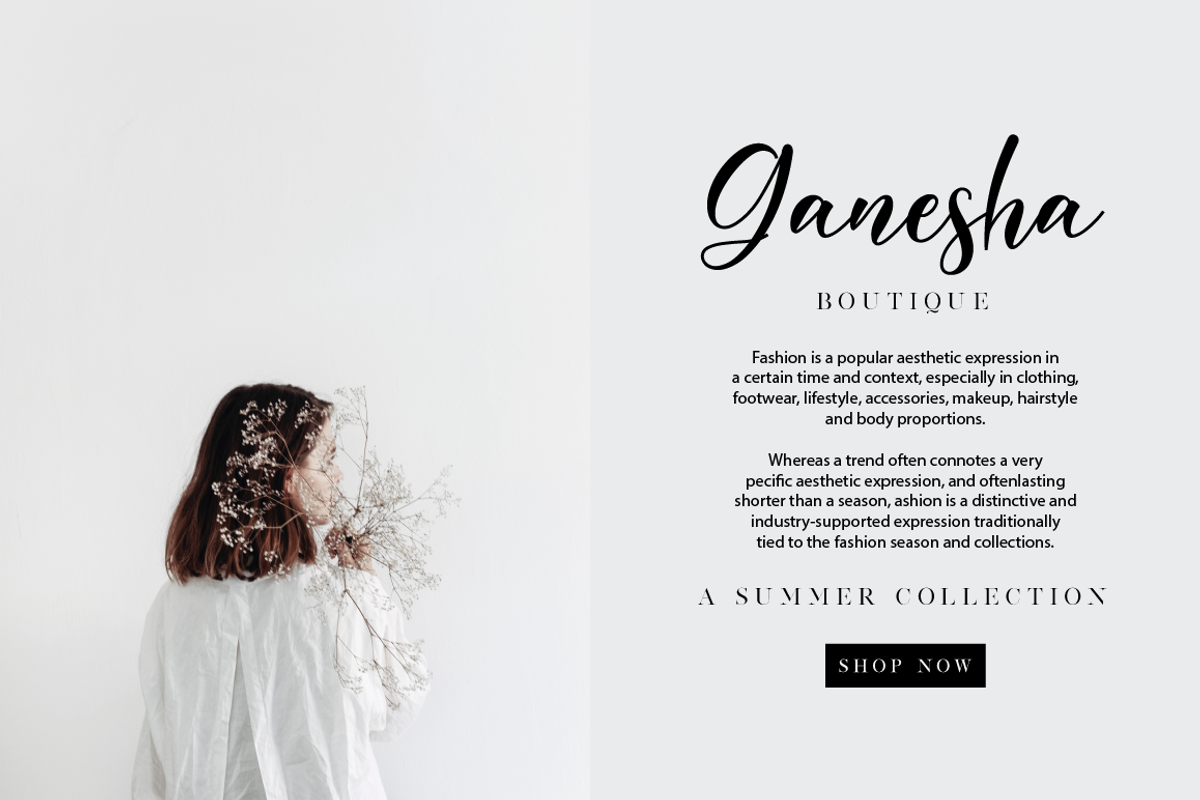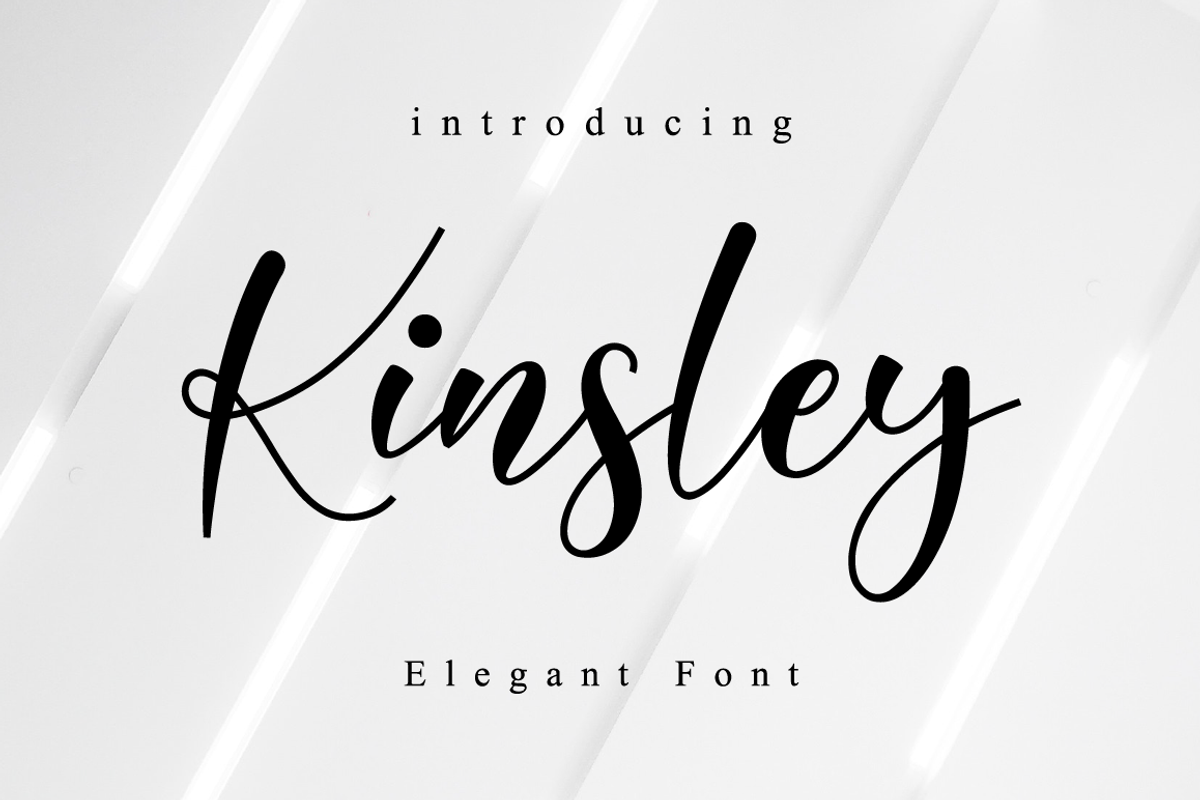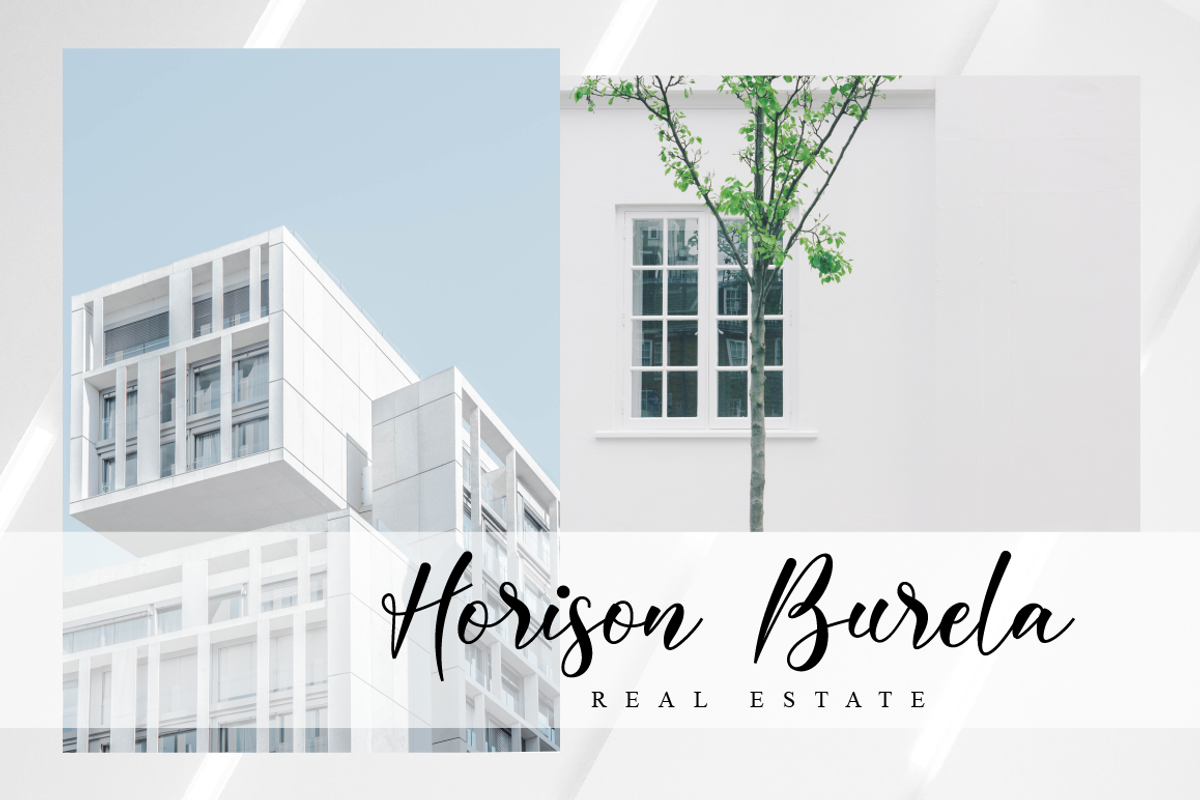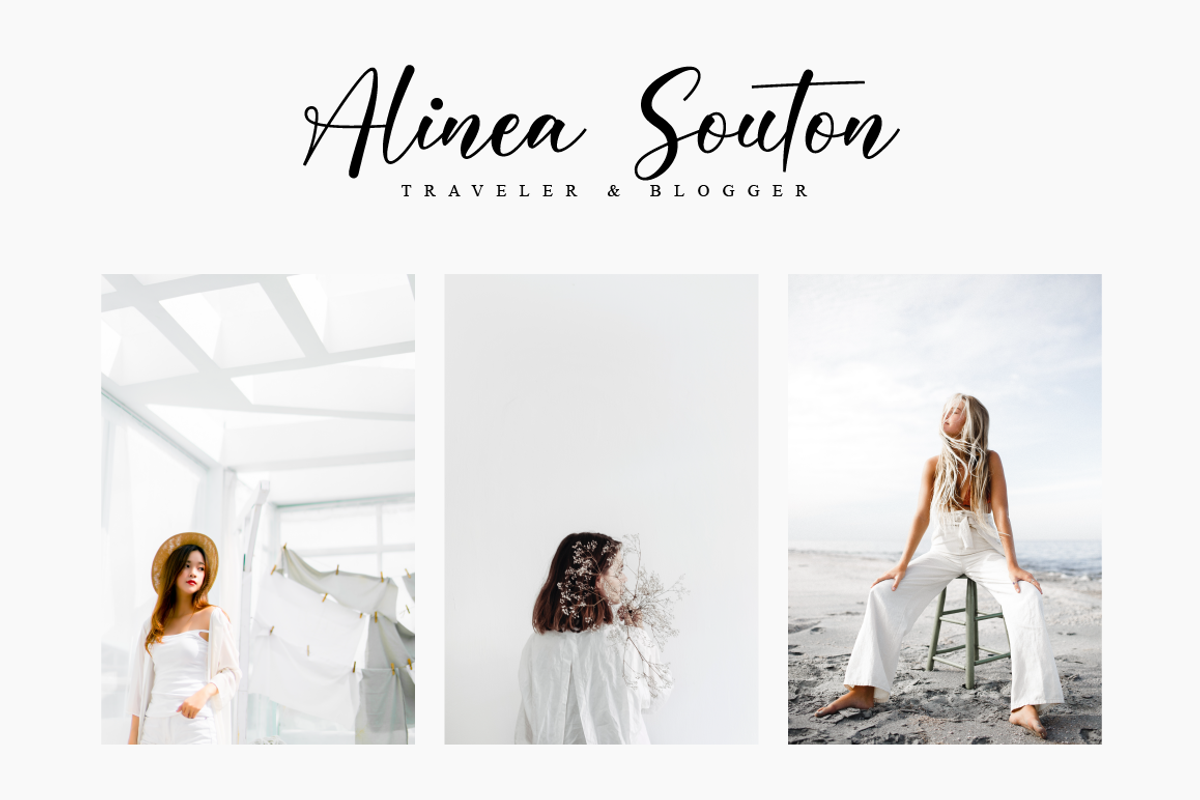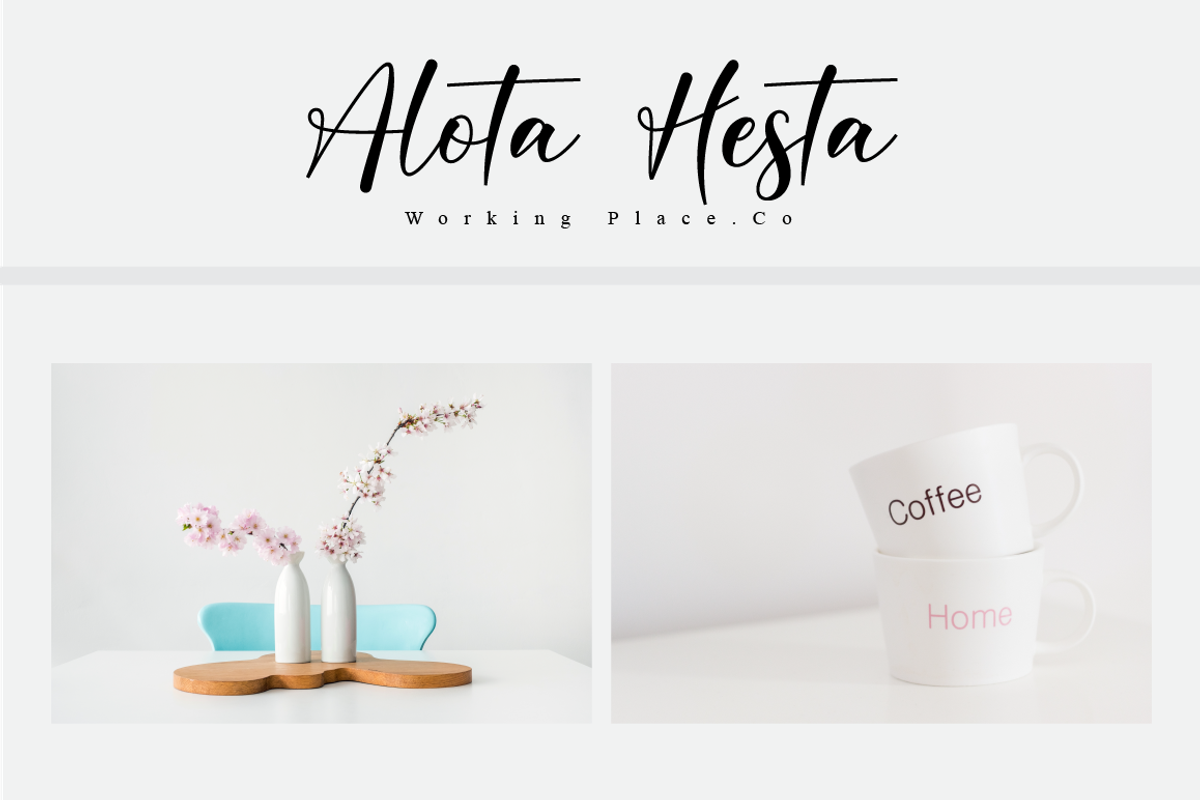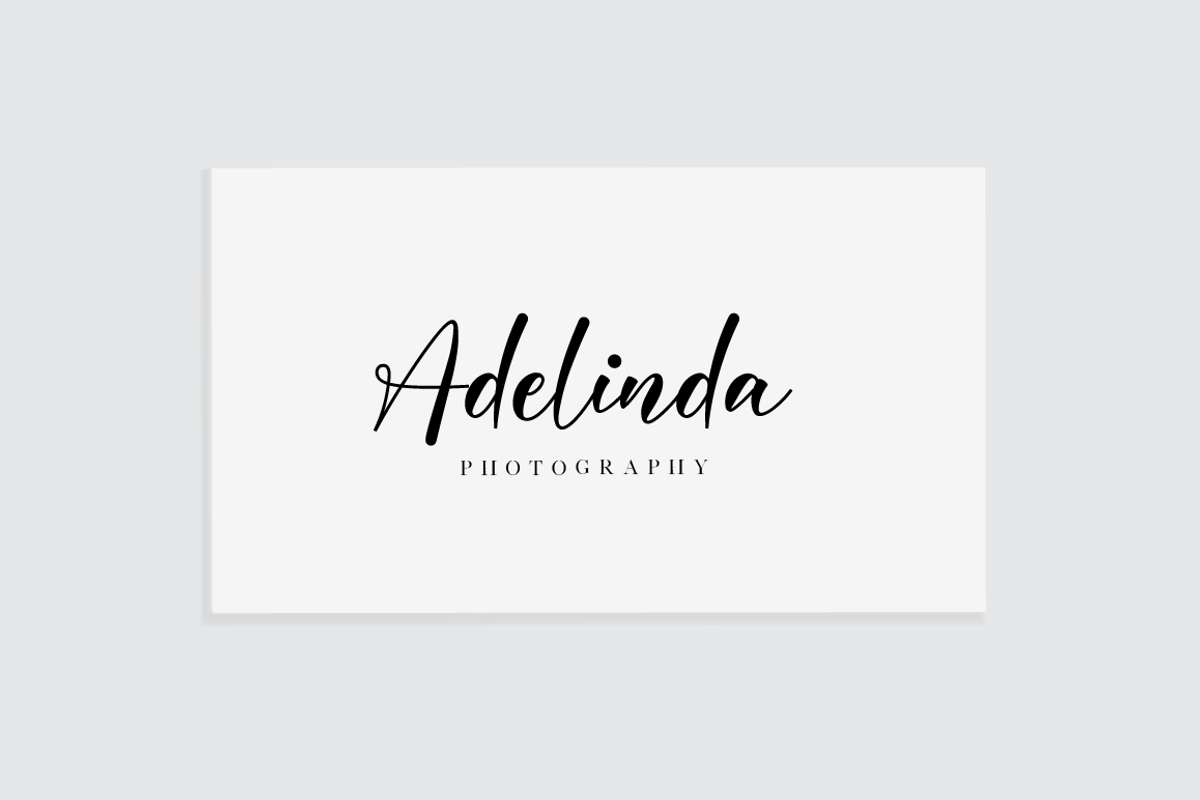
Kinsley // Elegant Font
Kinsley Script is a beautifully light script font with a silky smooth feel. It will add plenty of class and character to any design project!
- Modern Handwritten Font
- Beautiful Swash (Ending tail)
- Beautiful Titling (Beginning tail)
- Special Ligatures